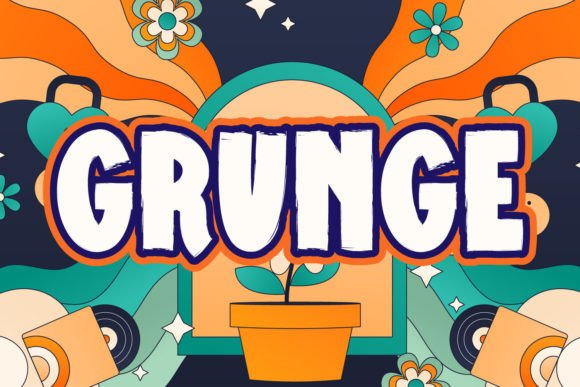
Grunge Font: The Perfect Choice for Playful and Authentic Designs
Are you a designer or crafter looking for a font that embodies playfulness and authenticity? Look no further than the Grunge Font. This cool, brushed, and thick lettered display font is perfect for any children activity or school project that requires a fun and unique touch.
What is Grunge Font?
Grunge Font is a type of display font that features a distressed, brushed, and thick lettered design. It’s a font that’s meant to stand out and make a statement, with a playful and carefree vibe that’s perfect for designs that need a bit of personality.
The Grunge Font is characterized by its rough, textured look, which gives it a handmade and authentic feel. The letters are thick and bold, with a slightly irregular shape that adds to the font’s playful charm.
Why Choose Grunge Font?
So why choose Grunge Font for your design project? Here are just a few reasons why this font is a great choice:
- Playfulness: Grunge Font is the perfect choice for designs that need a playful and fun touch. Whether you’re creating a children’s activity sheet, a school project, or a craft template, this font is sure to add a bit of whimsy and personality to your design.
- Authenticity: The distressed, brushed look of Grunge Font gives it a handmade and authentic feel that’s perfect for designs that need a bit of texture and character.
- Versatility: Grunge Font is a versatile font that can be used for a wide range of design projects, from children’s crafts to school projects, and even adult designs like party invitations and DIY templates.
How to Use Grunge Font
Using Grunge Font in your design project is easy. Here are a few tips to get you started:
- Pair it with a simple background: Grunge Font is a bold and eye-catching font, so it’s best to pair it with a simple background that won’t compete with the text.
- Use it for headings: Grunge Font is perfect for headings and titles, where its bold and playful design can really shine.
- Experiment with colors: Grunge Font looks great in a variety of colors, so don’t be afraid to experiment and find the perfect color for your design.
Grunge Font in Education
Grunge Font is a great choice for educational designs, such as activity sheets, worksheets, and school projects. Its playful and fun design makes it perfect for engaging young learners and adding a bit of personality to educational materials.
Teachers and educators can use Grunge Font to create:
- Activity sheets: Grunge Font is perfect for creating fun and engaging activity sheets, such as word searches, crosswords, and coloring pages.
- Worksheets: Grunge Font can be used to create worksheets that are both fun and educational, such as math problems, science worksheets, and language arts exercises.
- School projects: Grunge Font is a great choice for school projects, such as posters, presentations, and reports, where its bold and playful design can help students stand out.
Grunge Font in Crafting
Grunge Font is also a great choice for crafters, who can use it to create a wide range of DIY projects, such as:
- Party invitations: Grunge Font is perfect for creating fun and playful party invitations, such as birthday party invites, baby shower invites, and graduation party invites.
- Craft templates: Grunge Font can be used to create craft templates, such as paper flowers, gift tags, and DIY decorations.
- Signs and banners: Grunge Font is a great choice for creating signs and banners, such as welcome signs, directional signs, and party banners.
In conclusion, Grunge Font is a cool, brushed, and thick lettered display font that’s perfect for any design project that requires a playful and authentic touch. Its versatility, playfulness, and authenticity make it a great choice for designers, crafters, and educators alike. Whether you’re creating a children’s activity sheet, a school project, or a DIY craft template, Grunge Font is sure to add a bit of personality and whimsy to your design.